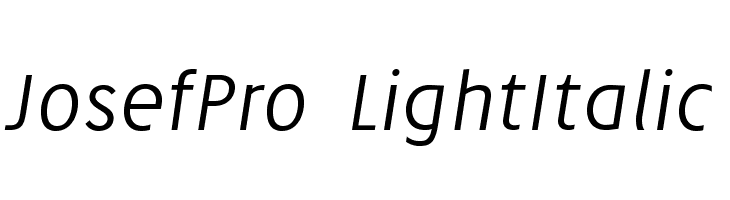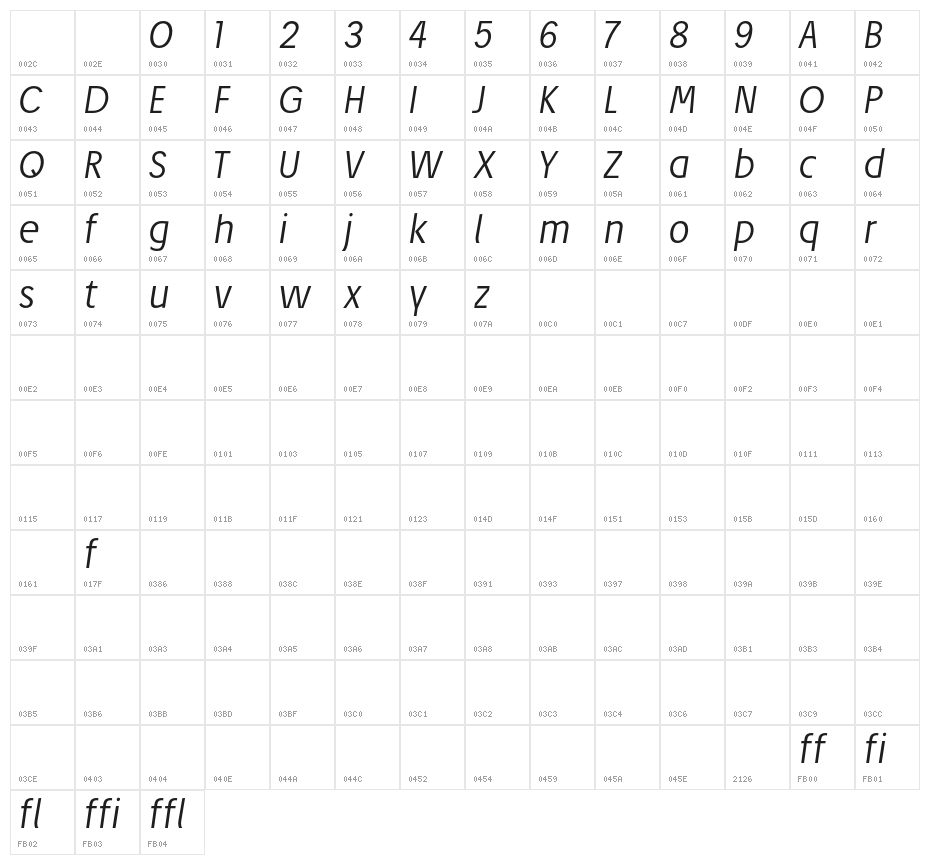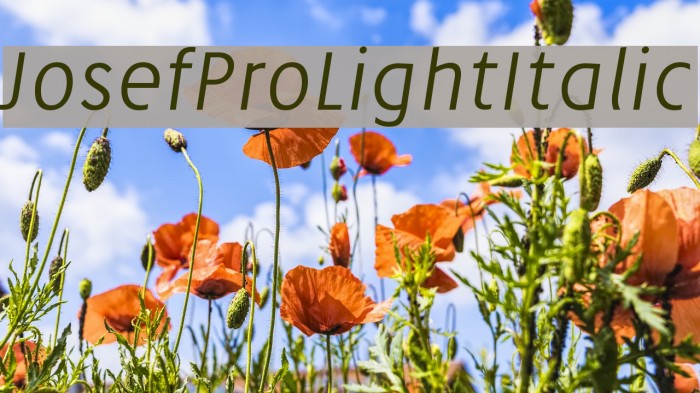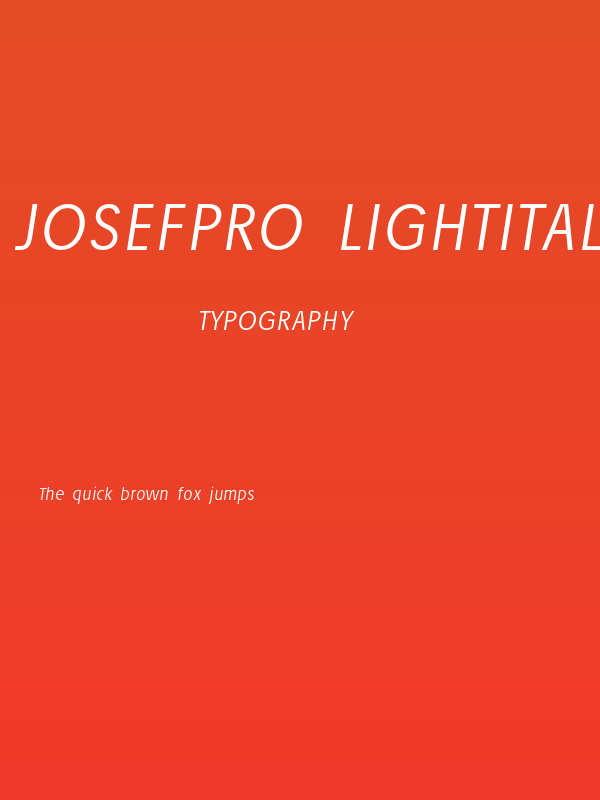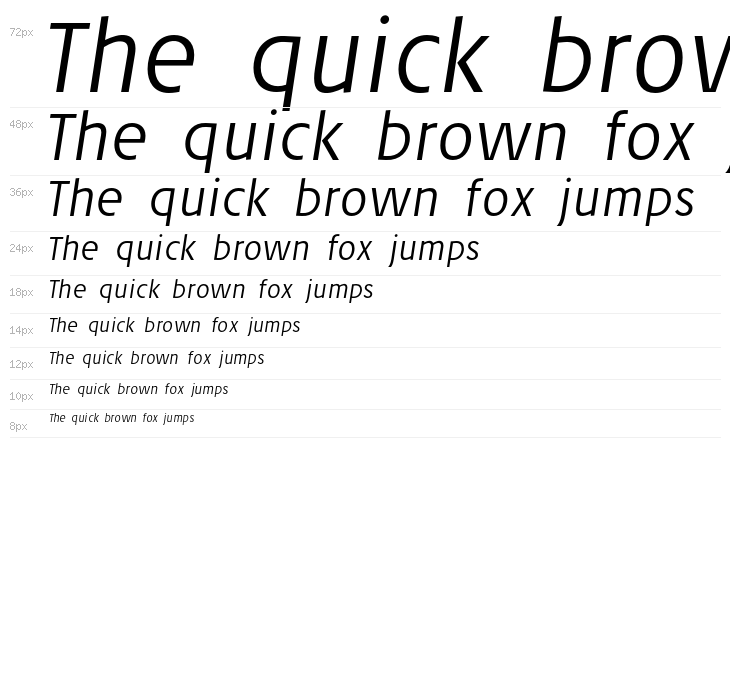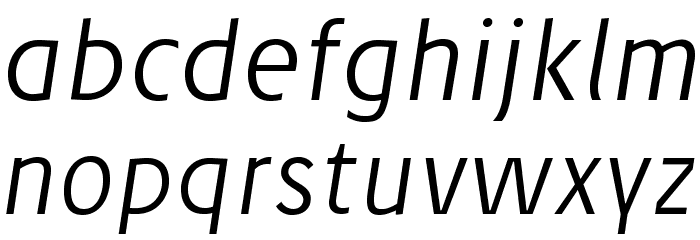
JosefPro-LightItalic Font
JosefPro-LightItalic Description
This font is a sleek and modern sans-serif typeface with a light weight and italic style. It features clean lines and a subtle elegance, making it suitable for contemporary design projects. The characters are slightly condensed, providing a compact appearance while maintaining readability. The stroke contrast is low, giving it a uniform and smooth look. This typeface is versatile, working well in both digital and print formats. Its minimalist design makes it ideal for projects that require a sophisticated yet understated aesthetic.
| Proposed Projects | Ideal for branding, editorial design, websites, and minimalist posters. |